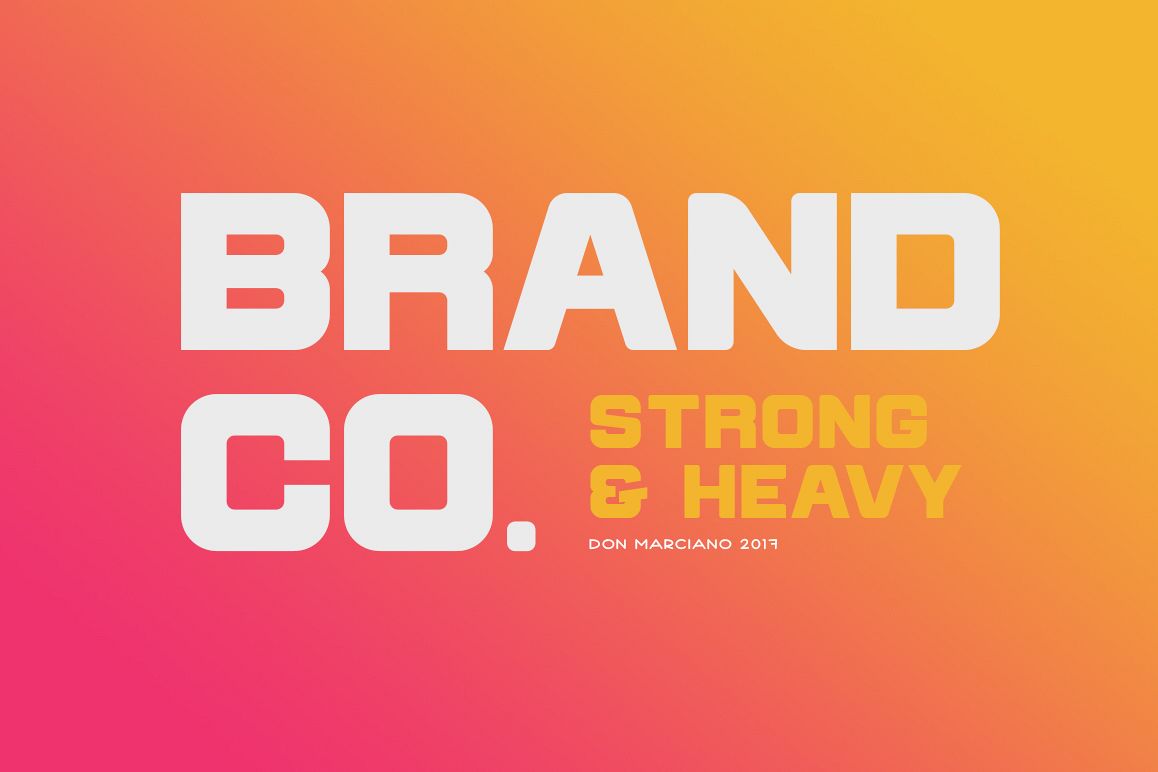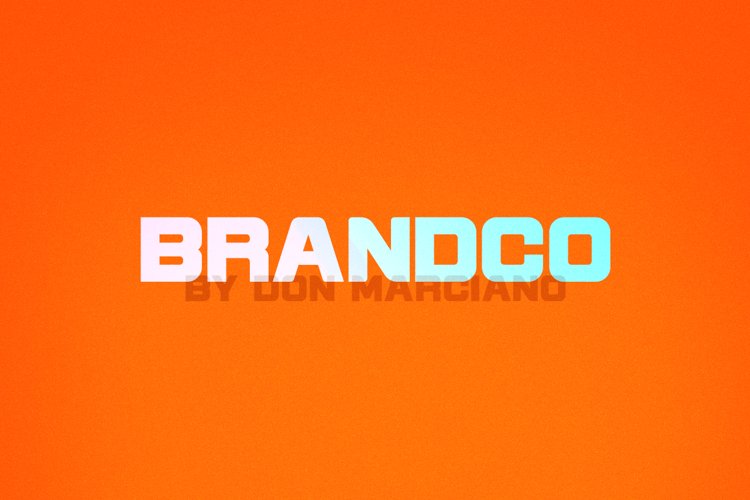
Brandco
Brandco is a brand-oriented font, designed specifically for creating an impact with short strong names, with its clean and curvy details, Brandco delivers the range to the never-ending search for greatness in the never-ending work hours of the design industry, where hours stretch well into the night, comes a font that simplifies the artist intentions and abides by the eight seconds rule of communication.